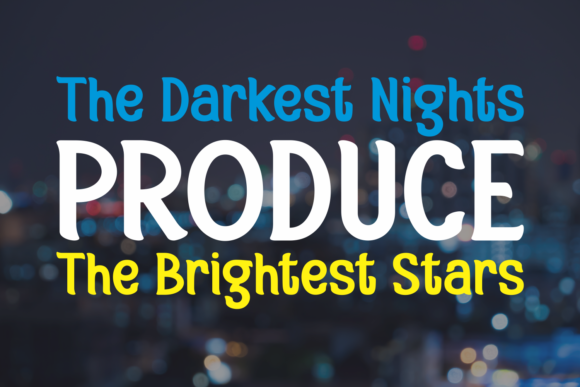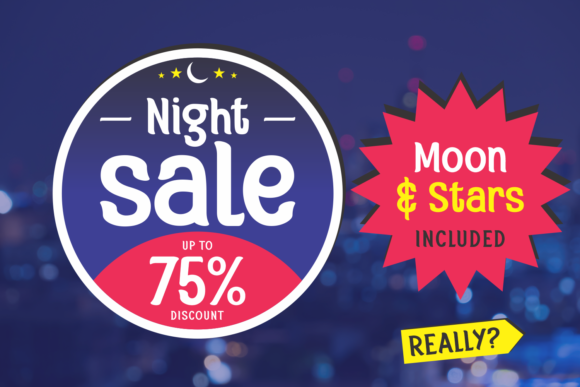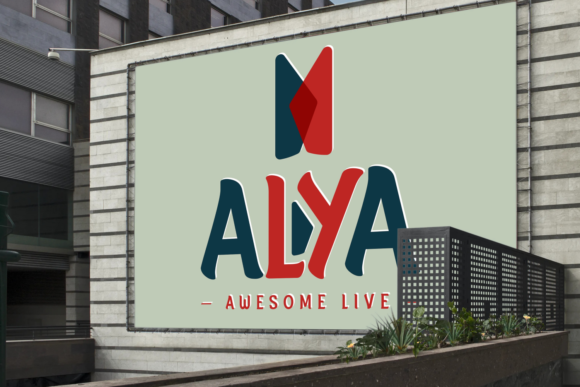
Introduction to Nighter Font
Nighter is a fun, bold and neat display font.
Dainty and joyful, this font will be ideal for writing wedding invitations, cards or any other design that may need a romantic, personalized touch .
Key Features of Nighter Font